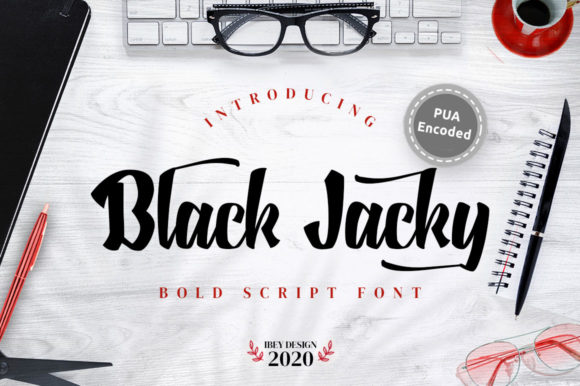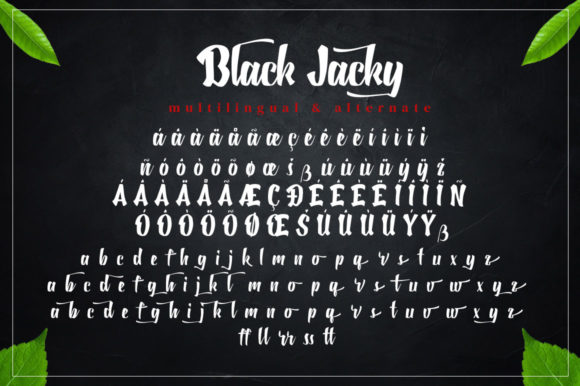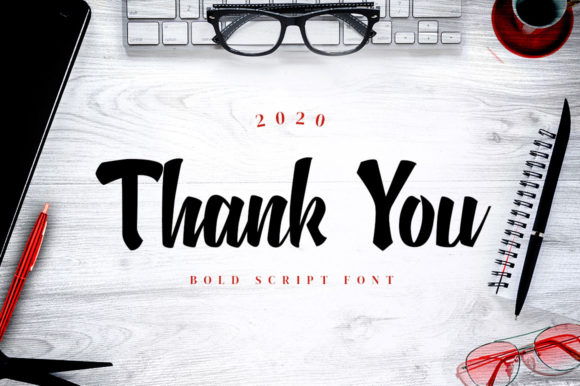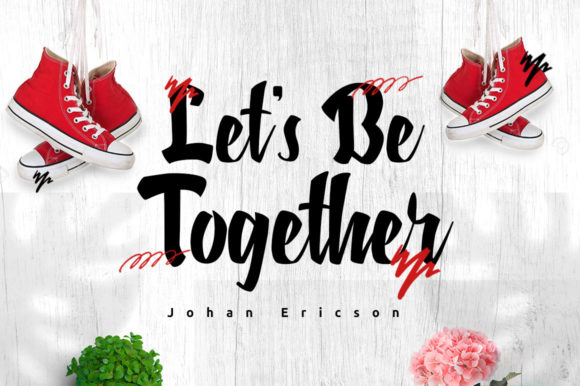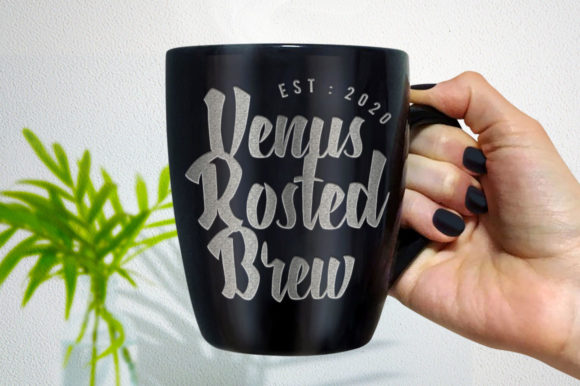
About Black Jacky Font
Black Jacky is a bold and sophisticated script font that exudes elegance and charm. With its eye-catching design, this versatile font is perfect for a wide range of applications, from greeting cards to headlines. It guarantees to infuse a romantic and captivating feel into your next project.
The striking allure of Black Jacky font lies in its bold and expressive script style. Each letter is meticulously crafted with intricate details and graceful curves, creating a sense of elegance and sophistication. Its confident strokes and well-defined characters make it a standout choice for designs that demand attention and evoke emotions.
This font’s versatility is a significant advantage. Whether you’re designing wedding invitations, crafting social media graphics, creating stylish headlines, or working on any other creative endeavor, Black Jacky font effortlessly adapts to various contexts. Its ability to convey a romantic atmosphere makes it particularly suitable for projects that aim to evoke love, passion, or beauty.
Black Jacky font’s boldness and elegance make it a perfect choice for creating impactful headlines. Its attention-grabbing design ensures that your message stands out and leaves a lasting impression. Whether used in print or digital media, this font’s powerful presence commands attention and captivates viewers.
Greeting cards also benefit from the romantic feel of Black Jacky font. Its delicate and stylish letterforms bring a touch of elegance and warmth to your heartfelt messages. Whether you’re designing birthday cards, anniversary cards, or love notes, Black Jacky font adds a personalized and romantic touch that resonates with the recipients.
Furthermore, Black Jacky font’s readability and distinctiveness make it well-suited for branding purposes. It adds a sense of sophistication and uniqueness to your logo designs, helping your brand to establish a strong visual identity. Whether you’re creating a logo for a luxury brand, a boutique business, or a romantic-themed product line, Black Jacky font elevates the overall look and feel, leaving a memorable impression on your audience.
In summary, Black Jacky is a bold and elegant script font that brings a touch of sophistication and romance to your projects. Its versatility makes it suitable for various applications, from greeting cards to headlines. With Black Jacky font, you can create visually stunning designs that capture attention, convey emotions, and leave a lasting impression.